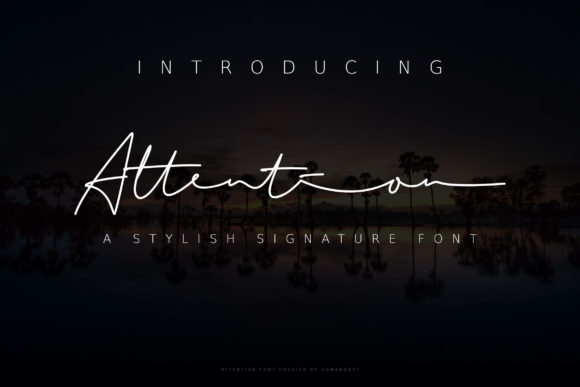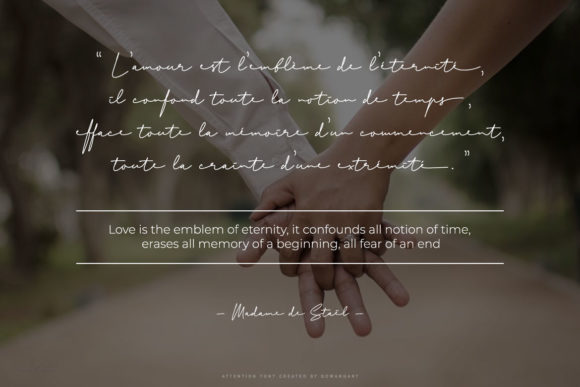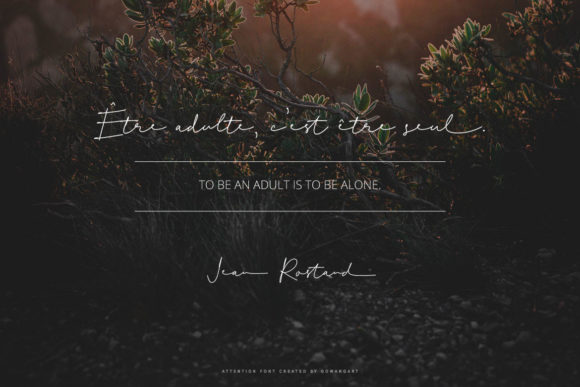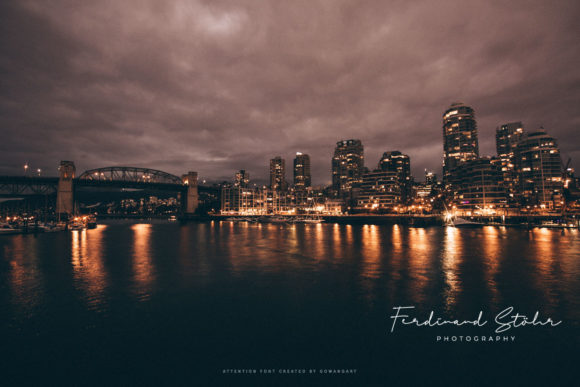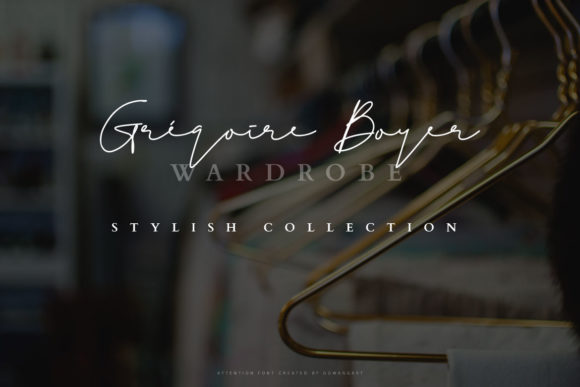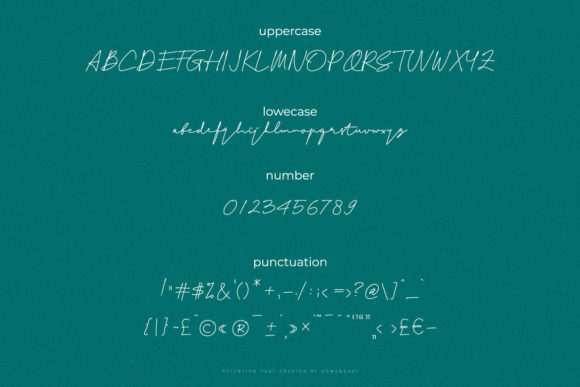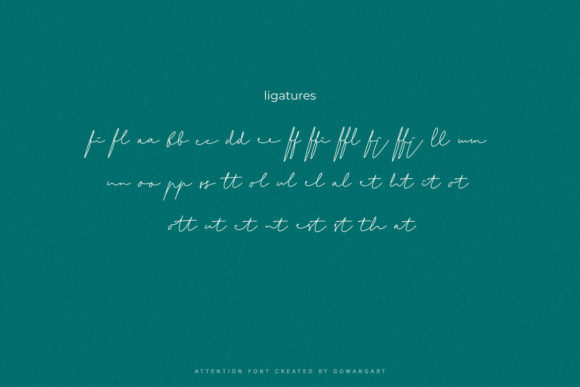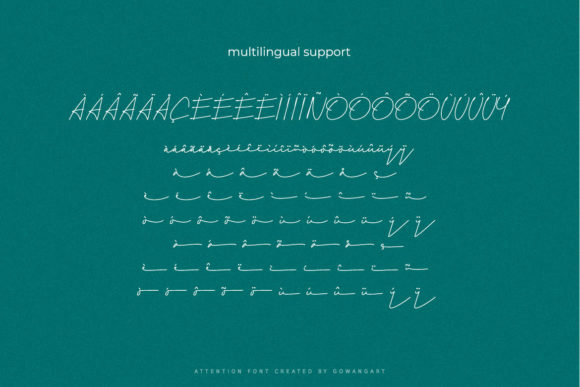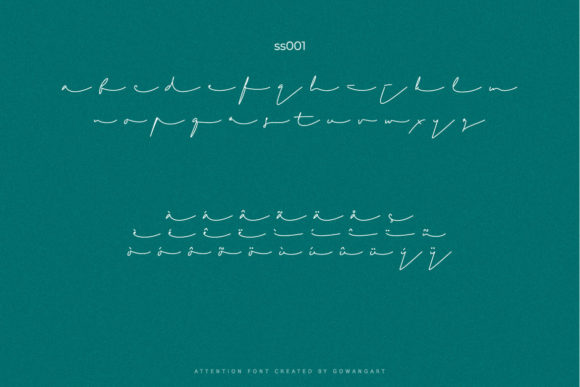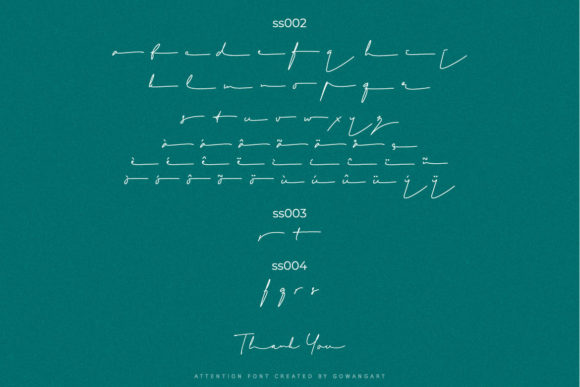
Attention Font
About Attention Font
Attention is a lovely and delicate script font that exudes elegance and class. This font was particularly crafted for those who need a beautiful and refreshing look to their designs.